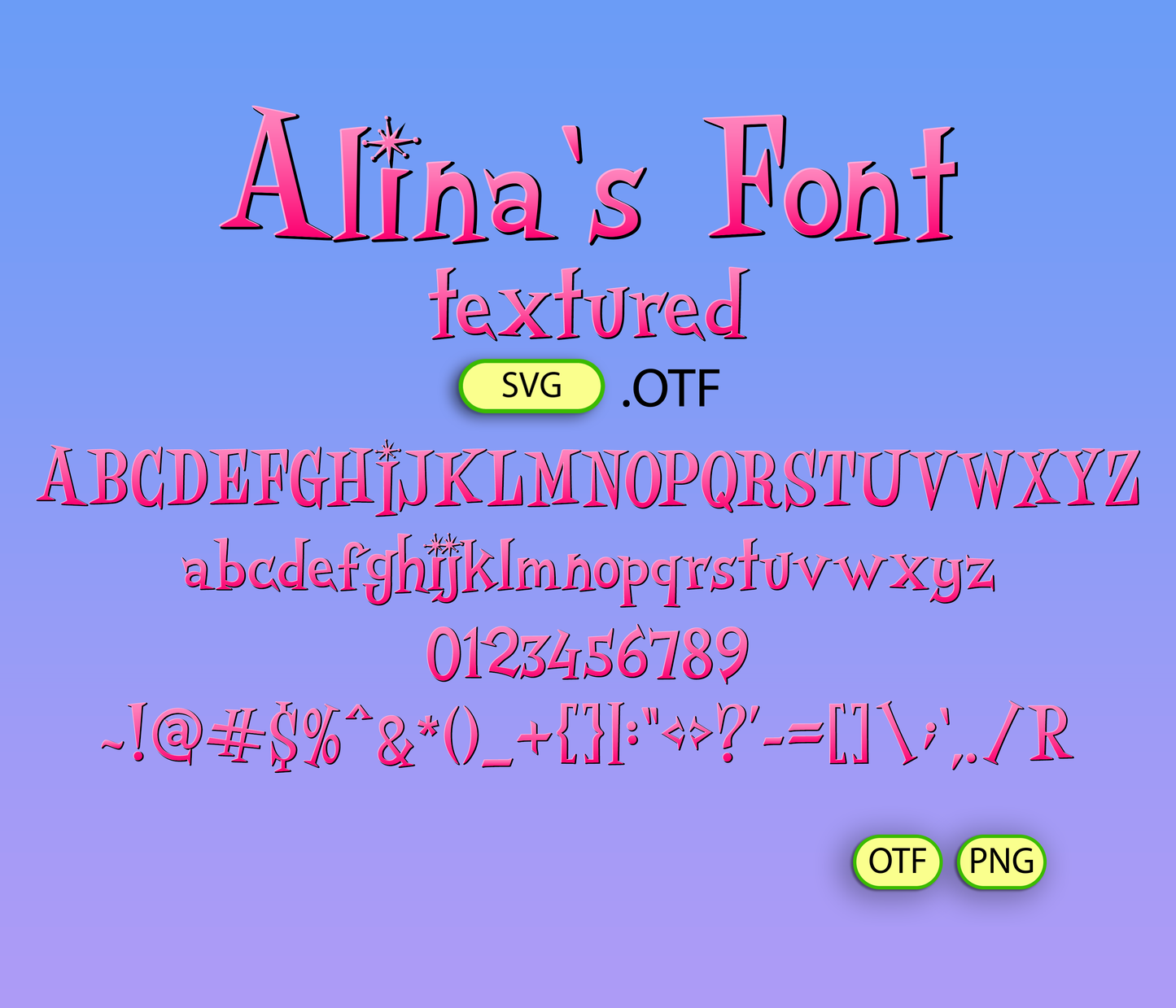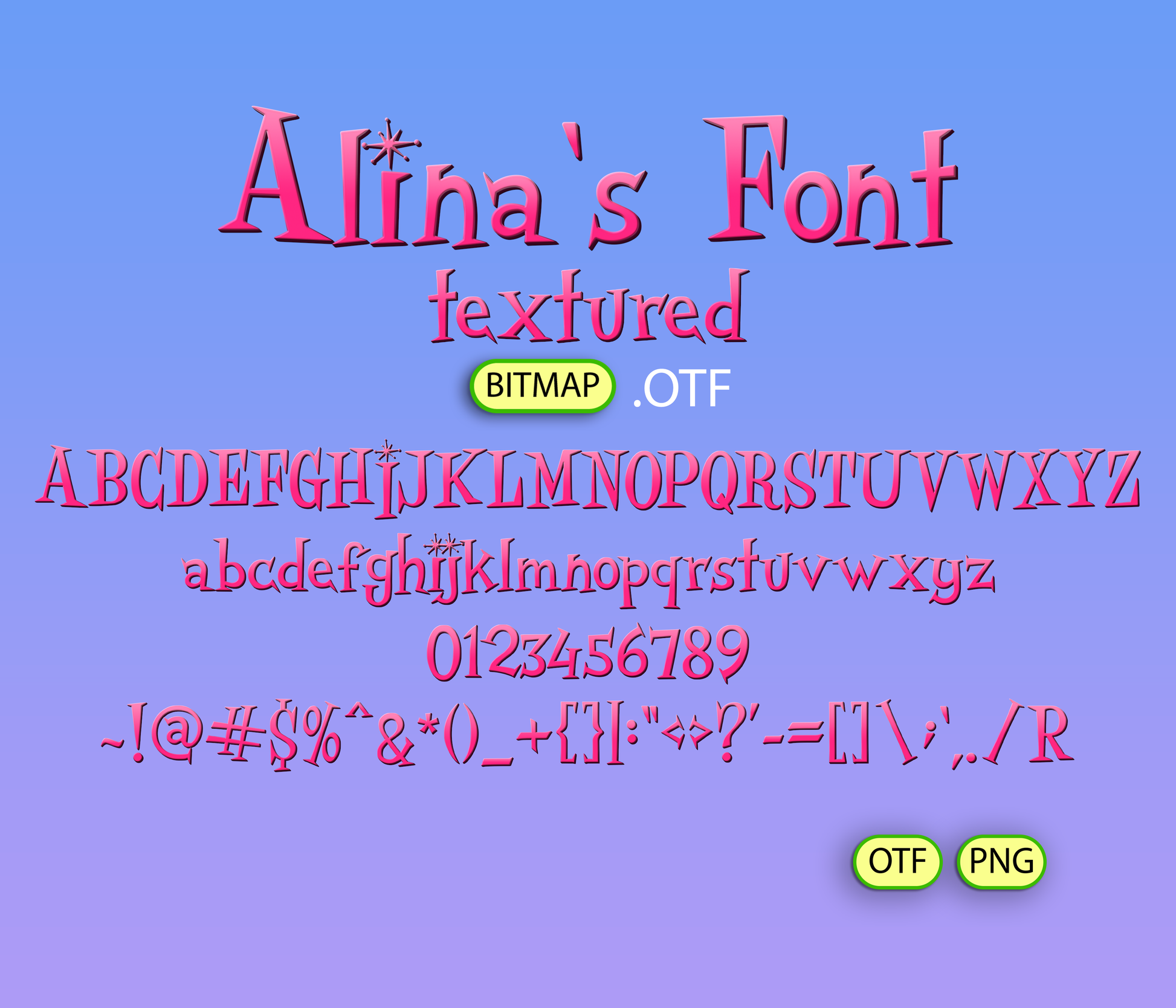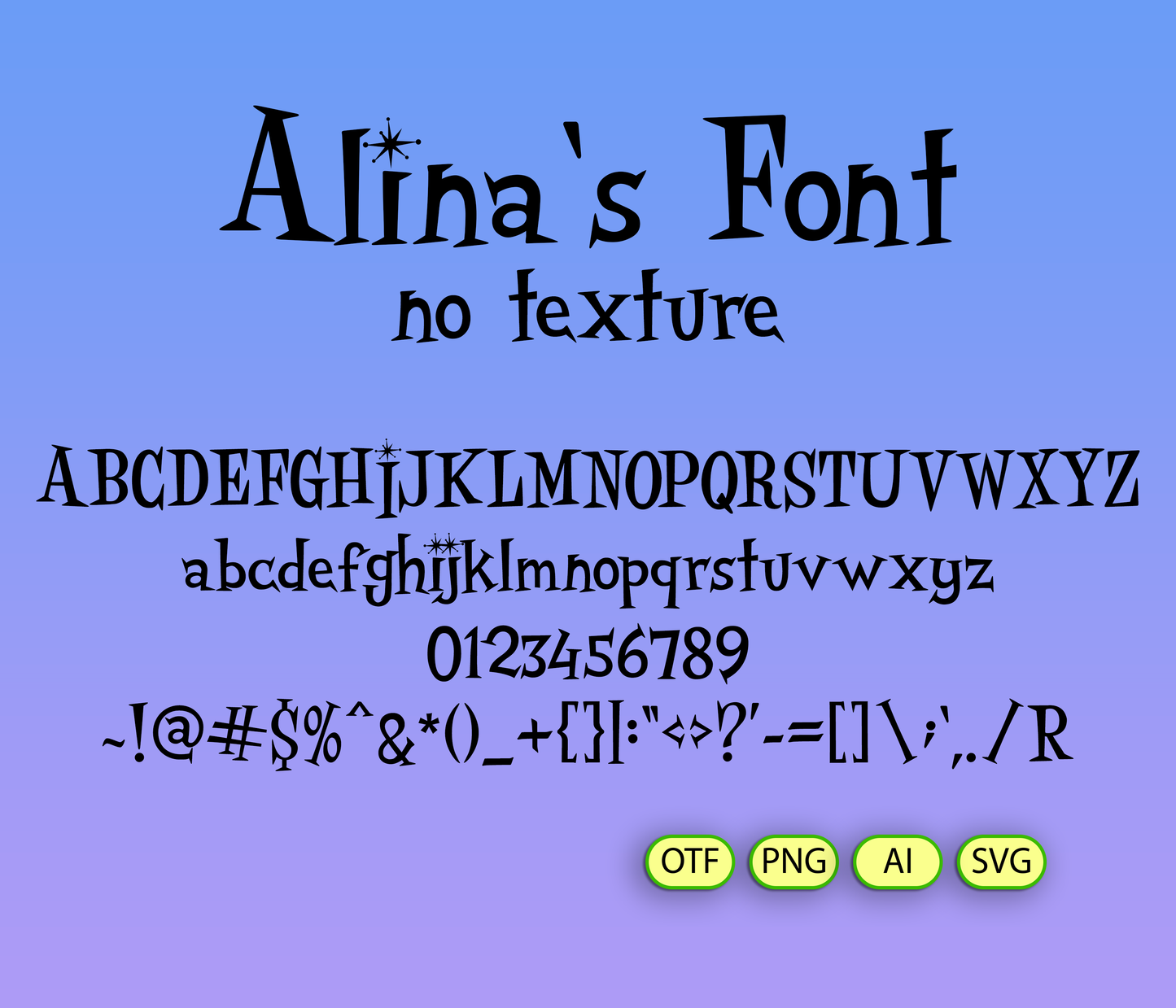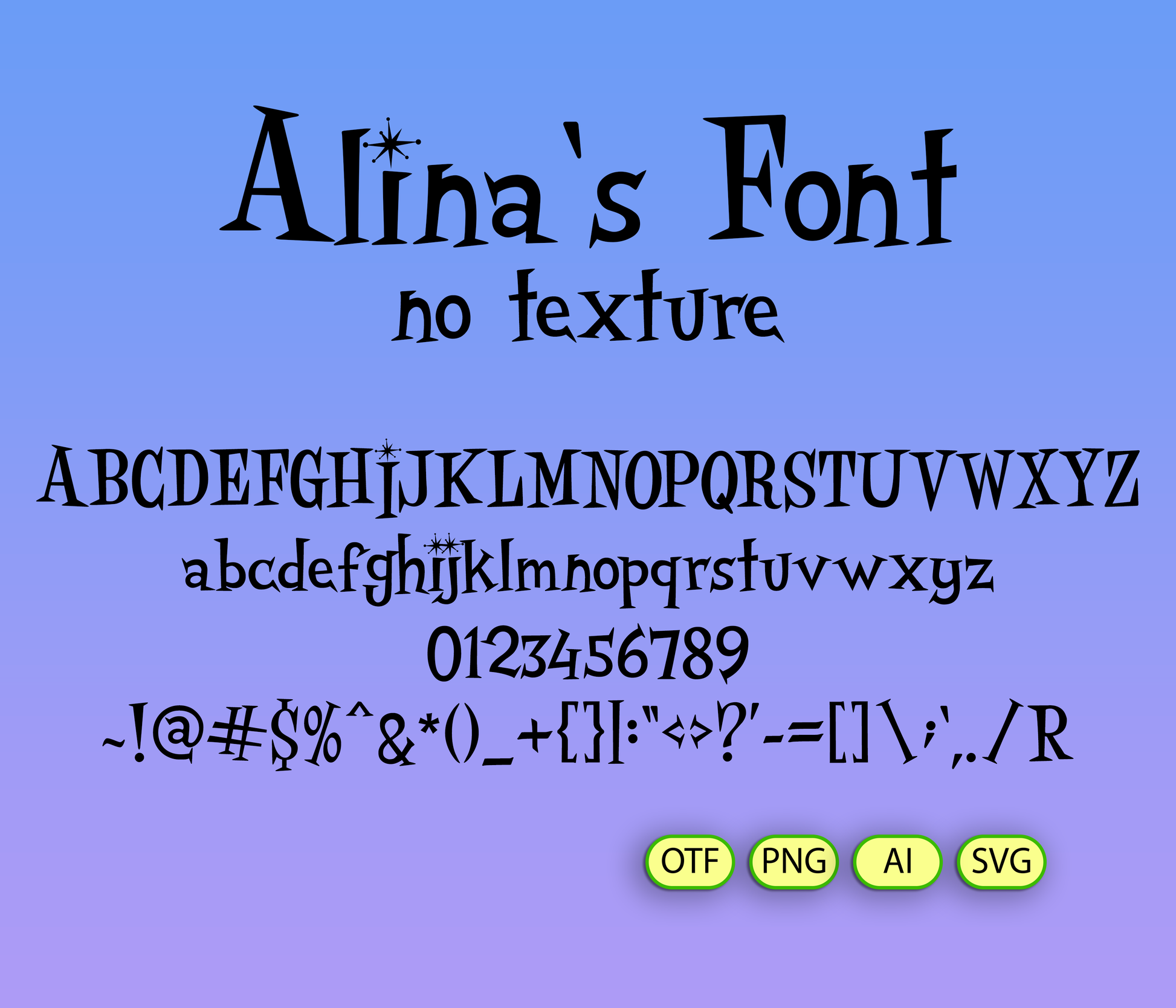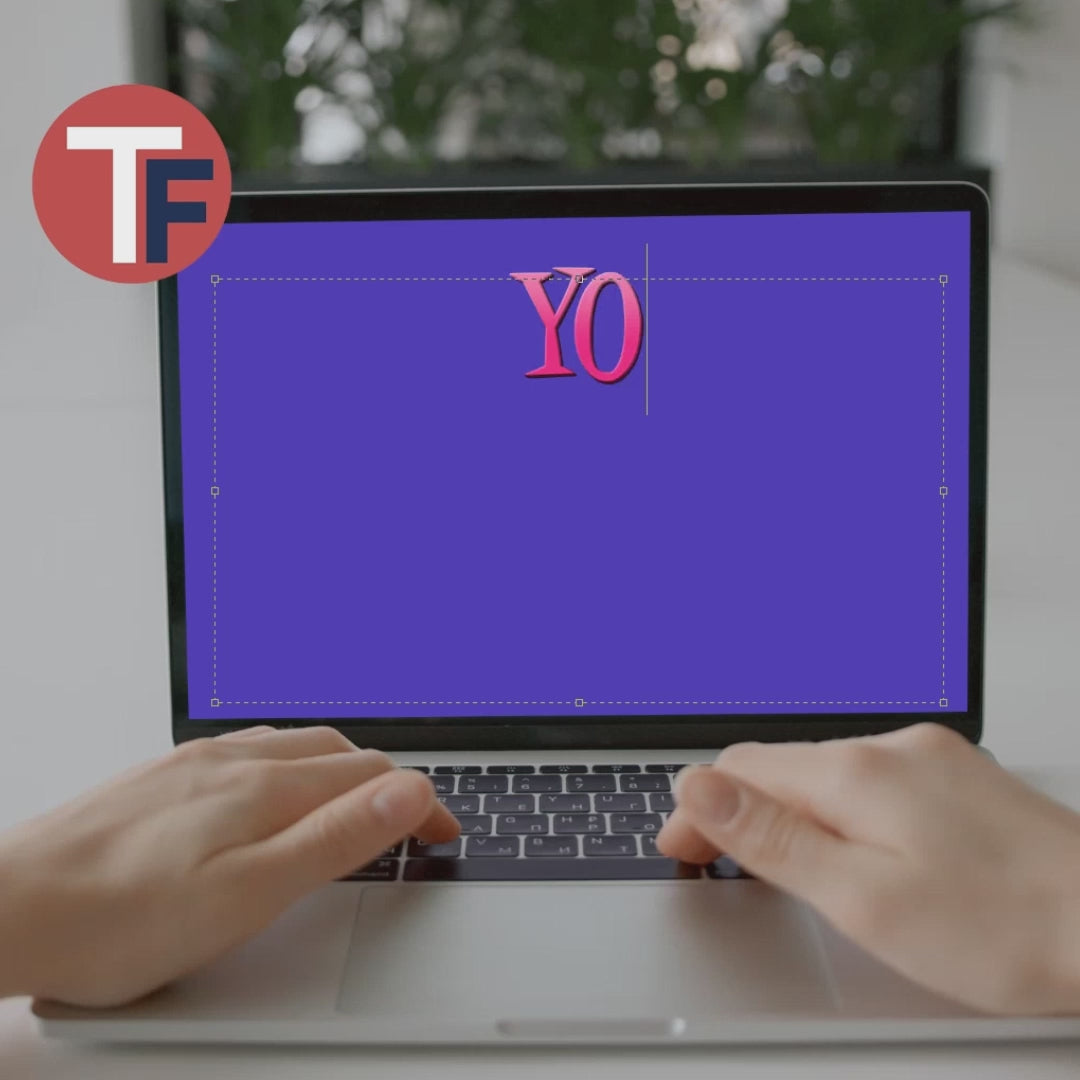
Stealthy Feline Font Textured
Step into the mischievously silent world of a beloved animated cat with our uniquely crafted Stealthy Feline textured font, designed to capture the essence of a classic cartoon series. This font isn't just a nod to the comical and sly antics of a pink-hued feline; it's a celebration of minimalist elegance and timeless charm. Each letter and character in this font embodies the sleek, smooth lines and the playful yet sophisticated spirit that made this animated character a symbol of cartoon brilliance.
What Font Is Stealthy Feline Font?
This font is a labor of love, meticulously shaped to echo the animation style of classic cartoons. We've paid close attention to the smooth, fluid curves and the minimalist elegance that characterized the show, particularly in its memorable opening sequences. Our font goes beyond the standard alphabet, including an array of numbers and special characters, ensuring a holistic representation of the unique visual language. Each glyph is designed to convey smoothness and agility, bringing an element of animated fun to your projects.
What You Can Do With Stealthy Feline Font?
Here's 10 things you can do with Stealthy Feline Textured Font:
- Animated video titles and credits.
- Birthday party invitations for kids and adults alike.
- Custom apparel featuring classic cartoon poses.
- Branded content for animation studios and creators.
- Thematic décor for children's rooms or play areas.
- Personalized stationery and school supplies.
- Unique packaging for kids' products.
- Marketing materials for retro-themed events.
- Social media graphics for cartoon enthusiasts.
- DIY projects and crafts, enhanced with a touch of nostalgia.
This font is perfect for bringing a playful, sophisticated touch to any project, whether it's for personal use or creative business ventures. It's a versatile tool for designers, animators, and fans alike, offering a unique way to capture the spirit of classic cartoon elegance.